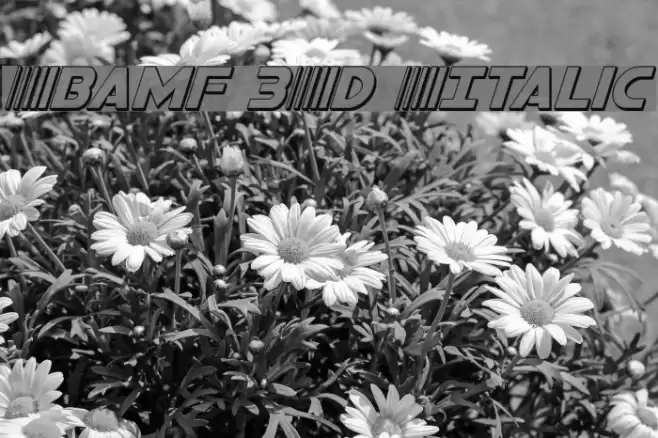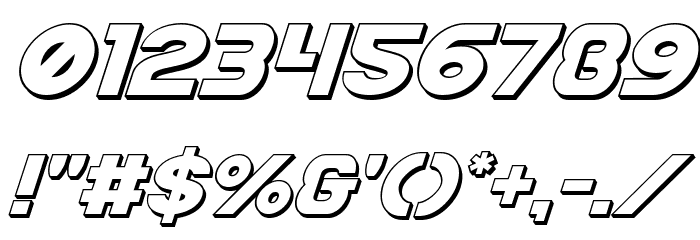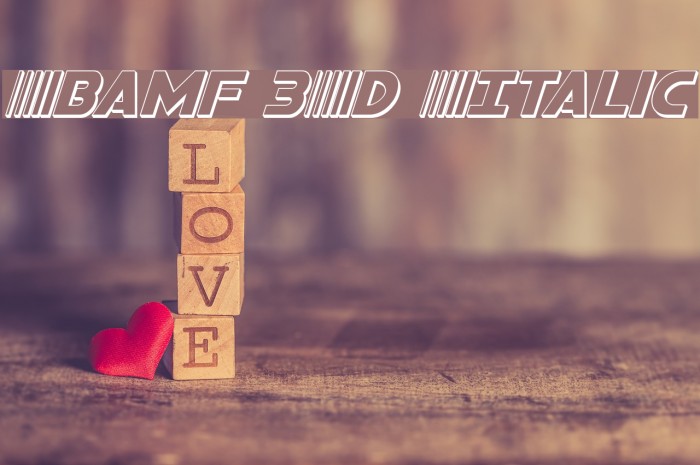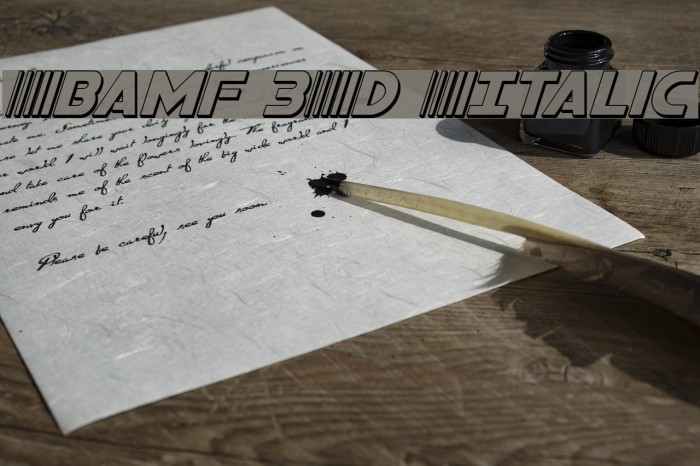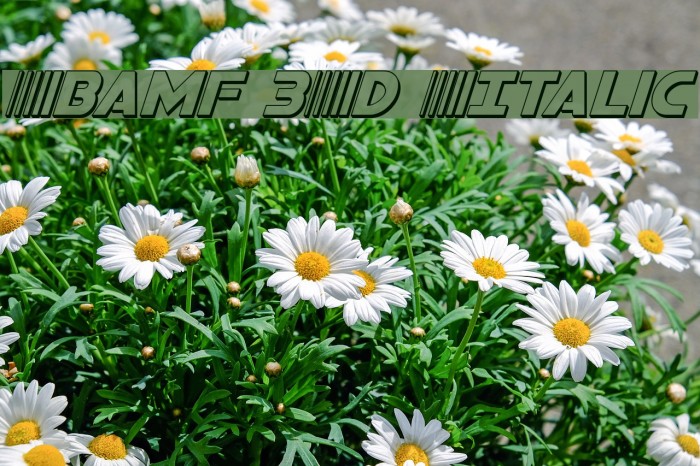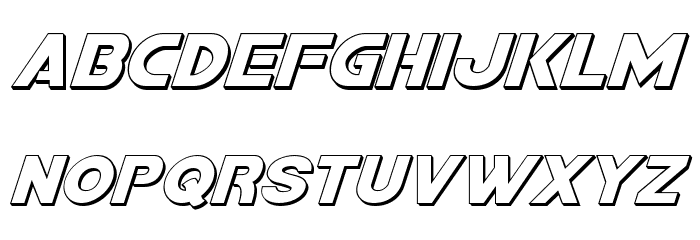
Bamf 3D Italic Font
Bamf 3D Italic Description
This font features a bold and dynamic 3D effect with an italic slant, giving it a sense of movement and depth. The uppercase letters are prominently styled with thick outlines and a shadow effect that enhances the three-dimensional appearance. The numbers and special characters maintain this bold, italicized style, ensuring consistency across all glyphs. The font's design is modern and eye-catching, making it suitable for projects that require a strong visual impact.
A bold, 3D italic font with a modern and dynamic style from Uncategorized fonts.
- Proposed Projects: Ideal for use in posters, headlines, logos, and any design that requires a striking and modern aesthetic.